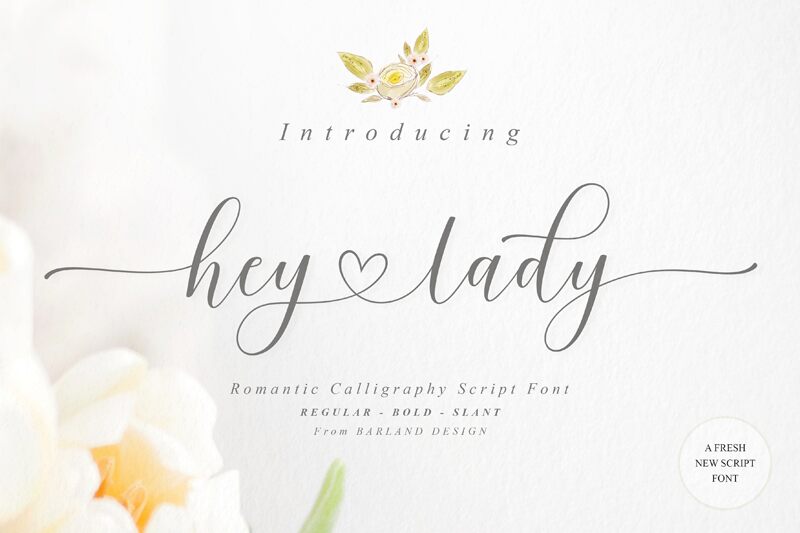
Hey Lady Slant is a captivating calligraphy font designed by Barland. With its delicate and elegant strokes, this light-weight font adds a touch of sophistication to any project. Perfect for wedding invitations, feminine branding, and fashion magazines, Hey Lady Slant brings a graceful charm to your designs. Whether it's creating stunning logos or crafting beautiful stationery, this calligraphy font exudes romance and grace. Its slanted style gives your typography a unique flair that is sure to captivate your audience. Elevate your projects with the timeless beauty of Hey Lady Slant.
Hey Lady Slant